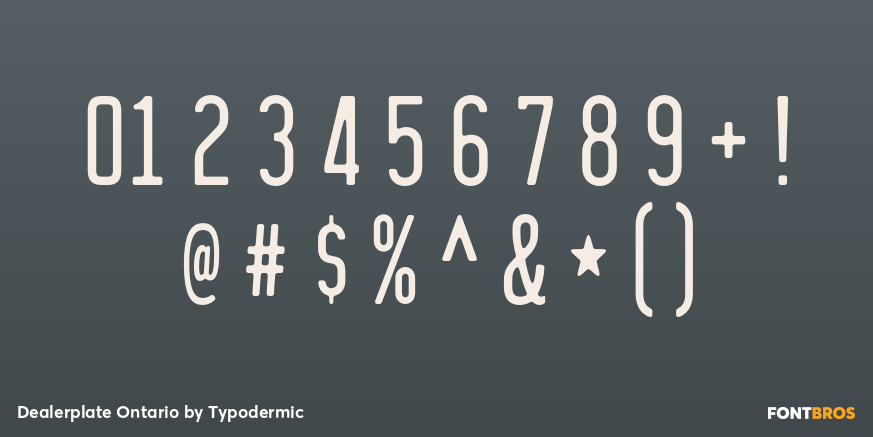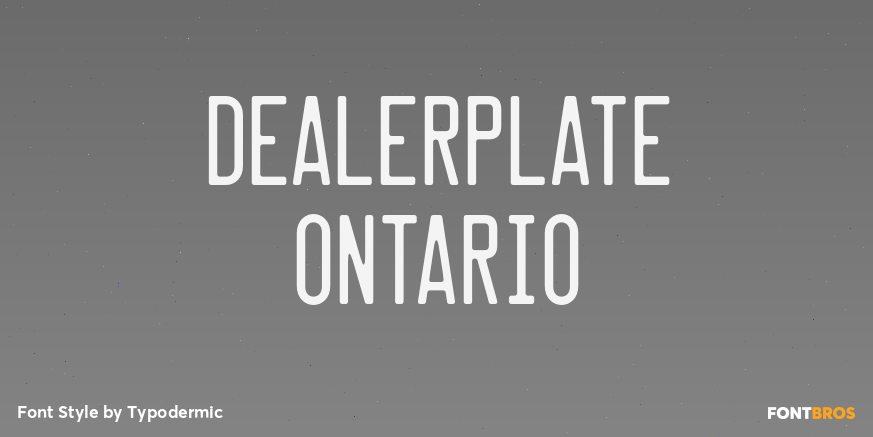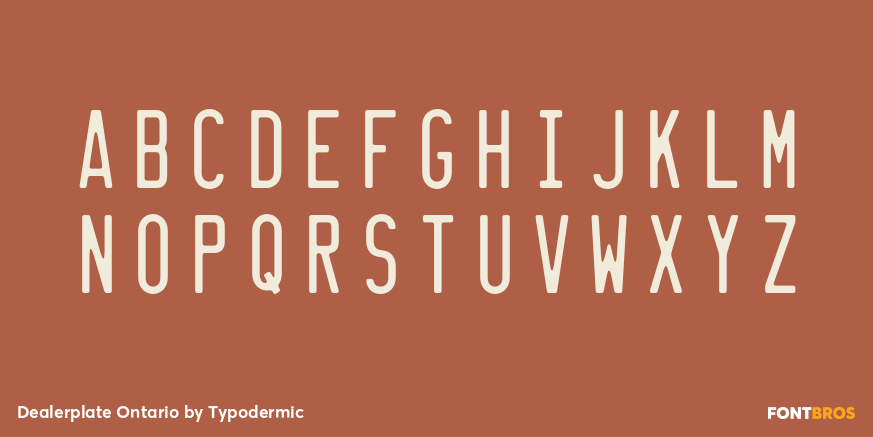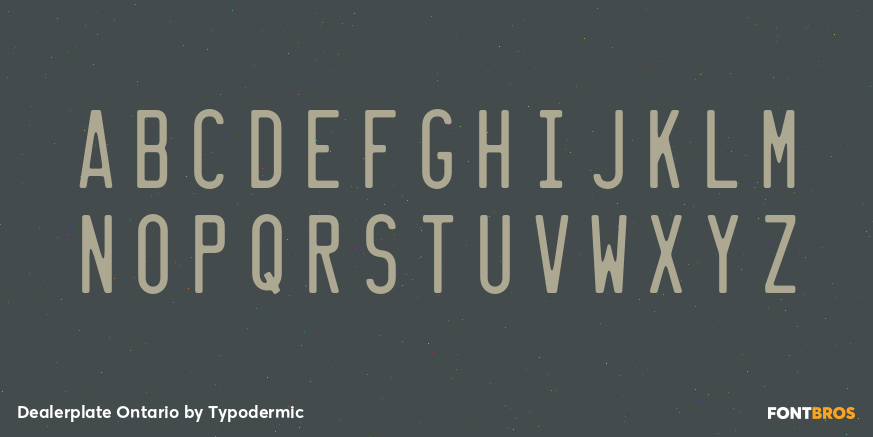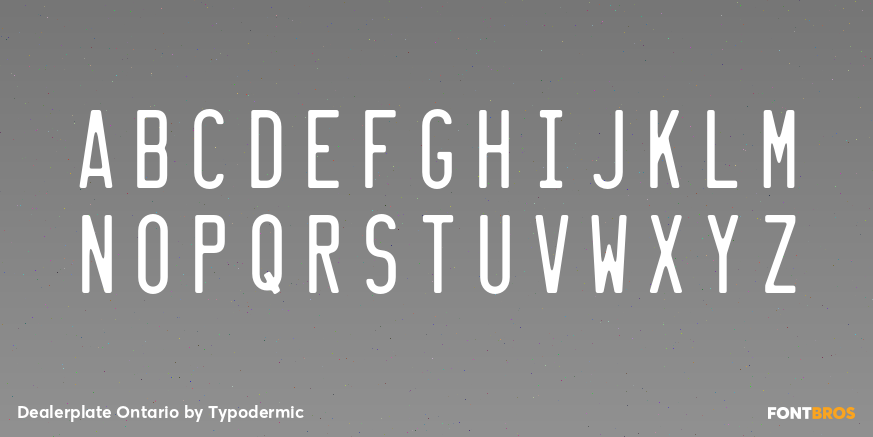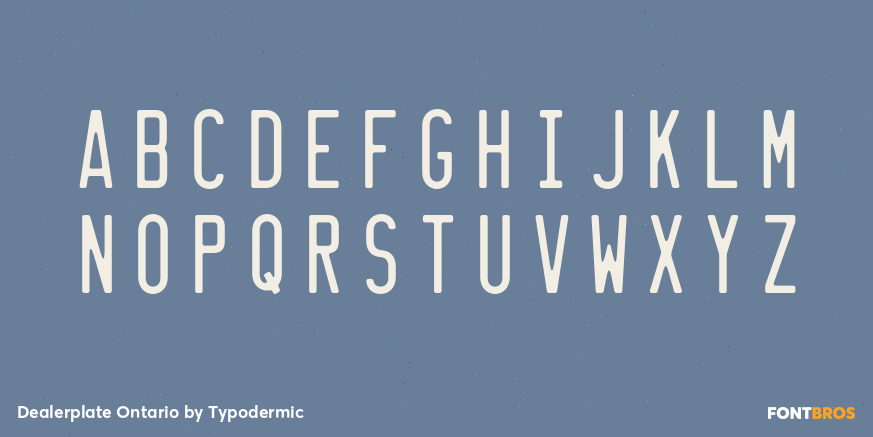
Dealerplate Ontario
Dealerplate Ontario expands Ontario-inspired license-plate lettering into a complete alphabet for Canadian vehicle props and digital worlds. It supplies the missing characters needed for fictional registrations, names, and companion graphics while keeping them visually connected to an Ontario road setting.
Use it for Toronto productions, Canadian police procedurals, highway and border stories, driving games, virtual-production traffic, evidence boards, impound records, parking permits, and automotive exhibits. The full alphabet lets a hero plate coordinate with case-file captions, registration documents, garage signs, and vehicle-selection interfaces, giving Ontario scenes a more specific identity than a generic North American plate font.